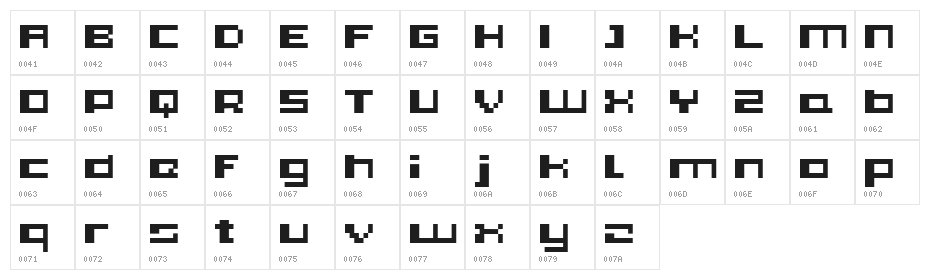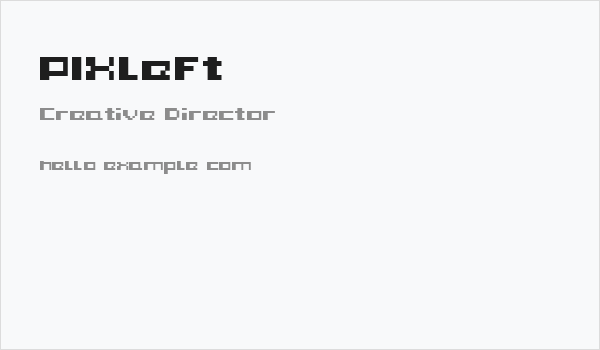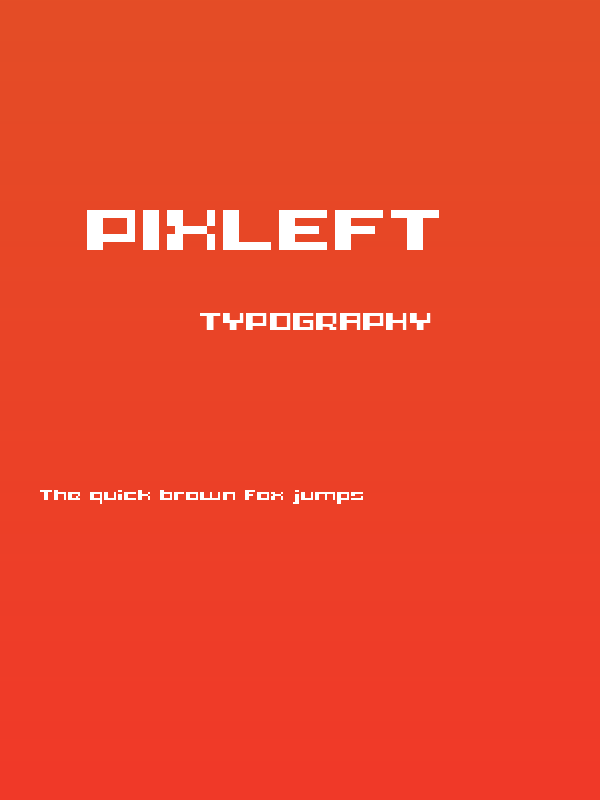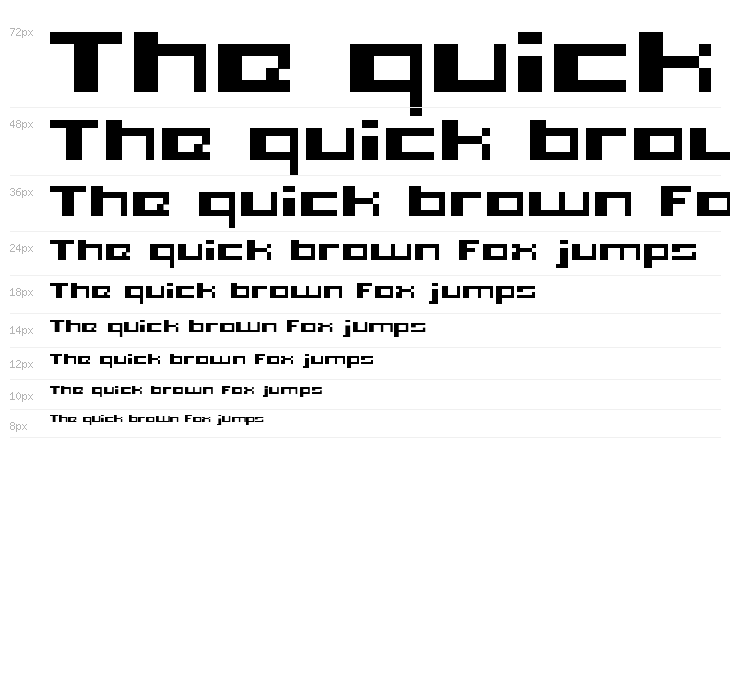
PIXleft_5 Font
PIXleft_5 Description
This font features a pixelated, blocky design reminiscent of classic 8-bit video games. Each character is constructed with sharp, angular edges and uniform stroke widths, creating a cohesive and structured appearance. The uppercase and lowercase letters maintain a consistent height, contributing to a balanced and orderly look. The numerals and special characters follow the same pixelated style, ensuring visual harmony across all elements. The font's geometric nature and retro aesthetic make it ideal for projects that aim to evoke nostalgia or a digital, tech-inspired theme.
| Overall Style | Retro |
| Use Case | Logos, Headlines, Posters |
| Proposed Projects | Ideal for video game designs, retro-themed posters, digital art, and tech-related branding. |